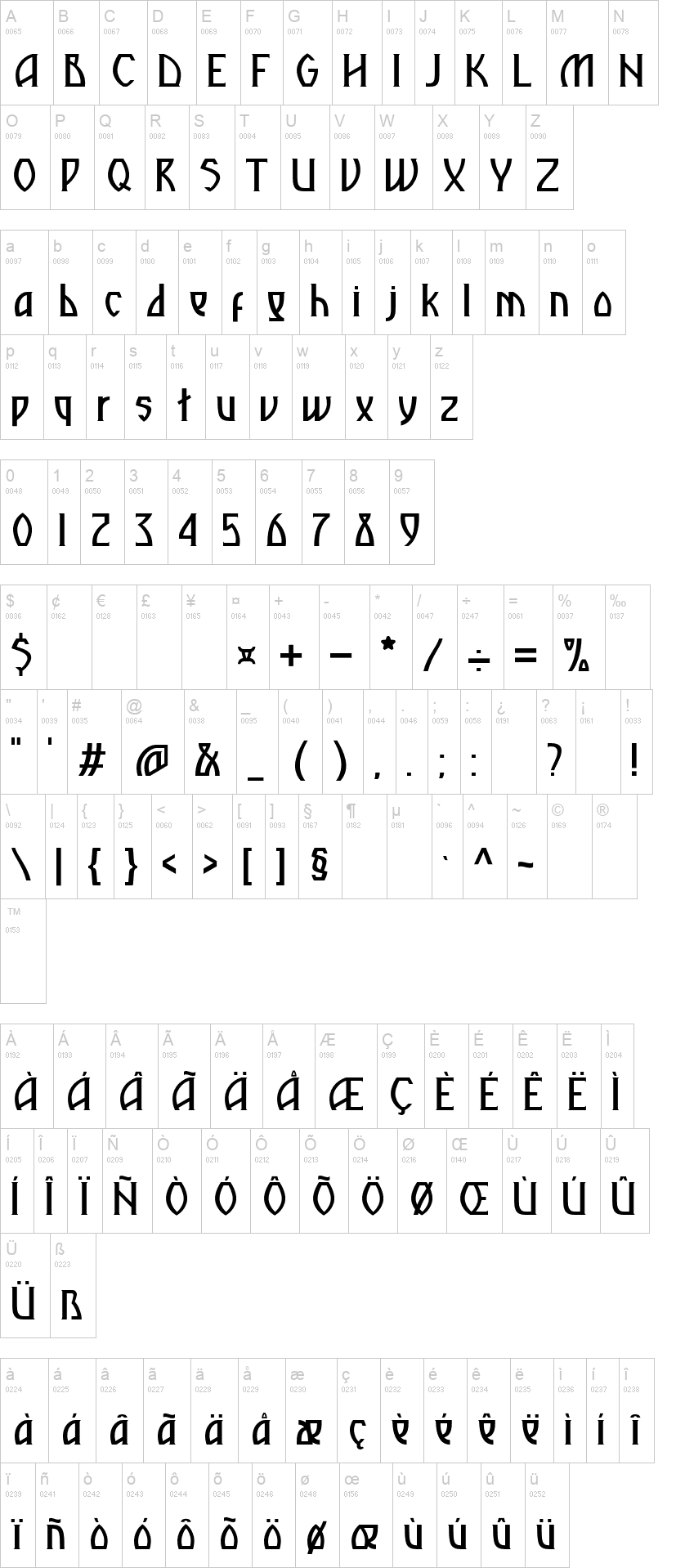
Note of the authorRooted in the legacy of traditional scripts, this font encapsulates the beauty and heritage of bygone eras while offering a contemporary twist for modern design applications. It adds a unique touch to your design projects, capturing attention and infusing creativity into your visual narratives.